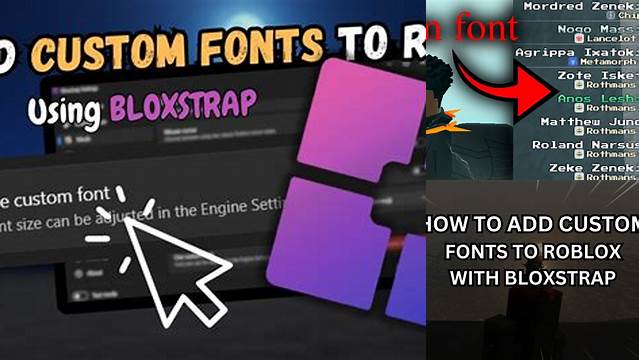
Roblox Fonts: How To Get & Use Custom Text!
Hey guys! Ever wanted to spice up your Roblox game with some cool, unique fonts? Well, you've come to the right place! Adding custom fonts to your Roblox creations can seriously level up the immersion and visual appeal. Whether you're designing a spooky horror game or a vibrant, bubbly hangout spot, the right font can make all the difference. This guide will walk you through everything you need to know about how to get fonts in Roblox, from finding the perfect typeface to implementing it like a pro.
Why Bother with Custom Fonts in Roblox?
Before we dive into the nitty-gritty, let's talk about why you should even bother with custom fonts in the first place. The default Roblox font is, well, a bit basic. It gets the job done, but it's not exactly going to win any design awards. Custom fonts allow you to:
- Enhance Immersion: Imagine a medieval RPG with Comic Sans. Doesn't quite fit, right? A custom font can perfectly match the theme and setting of your game.
- Improve Readability: Some fonts are simply easier to read than others. Choosing the right font can make your UI and in-game text much more user-friendly.
- Stand Out from the Crowd: In a sea of Roblox games, a unique font can help your game grab attention and leave a lasting impression.
- Brand Your Game: Using a consistent font across all your games can help build a recognizable brand.
1. Understanding Roblox Font Limitations
Okay, so before we jump in, let's get one thing straight: Roblox doesn't let you just upload any font file and use it directly. There are some limitations we need to work around. Roblox primarily uses font objects which reference fonts already installed on the user's computer. This means that to truly customize the look and feel with your fonts, some extra effort is needed. While there are constraints to consider, understanding these hurdles is the initial step to how to get fonts in Roblox effectively. You will need to find fonts that are compatible and explore methods to implement them, ensuring they appear as intended for all players.
2. Finding Free Fonts for Roblox
The good news is, there are tons of amazing free fonts out there that you can use in your Roblox games! Websites like Google Fonts, DaFont, and Font Squirrel are treasure troves of typefaces just waiting to be discovered. When browsing for fonts, keep the following in mind:
- Readability: Choose a font that's easy to read at various sizes and resolutions.
- Style: Pick a font that matches the overall aesthetic of your game.
3. Using Image Labels and Text Objects
One common method for using custom fonts is through image labels. You'll create an image of your text using the desired font and then display that image in your Roblox game. This method gives you full control over the appearance of the text but can be more labor-intensive than other options.
4. Utilizing Third-Party Font Services
Another approach is to use third-party font services, which provide APIs to render text with custom fonts dynamically. These services often offer a wider range of fonts and advanced features but may come with a cost.
5. Creating Custom GUIs with Unique Fonts
Custom GUIs are essential for any Roblox game that aims to provide a unique player experience. Incorporating custom fonts into your GUIs can greatly enhance their visual appeal and readability, contributing to a more immersive and engaging game. Understanding how to get fonts in Roblox and integrate them into your GUI design is key to creating a polished and professional-looking game interface.
6. Optimizing Font Performance in Roblox
Performance is crucial in Roblox, so it's essential to optimize your font usage to avoid lag or frame rate drops. Use font atlases, reduce the number of text objects, and choose fonts with simpler outlines to minimize the impact on performance. Optimizing the performance when working out how to get fonts in Roblox will drastically improve the user experience.
7. Exploring Different Font Styles for Roblox Games
Experimenting with different font styles can greatly enhance the visual appeal of your Roblox game. From serif to sans-serif, script to display, each font style has its own unique characteristics that can evoke different emotions and set the tone for your game. Consider experimenting with a variety of options when exploring how to get fonts in Roblox.
8. Implementing Font Scaling for Various Devices
Ensuring that your fonts scale properly across different devices is essential for providing a consistent user experience in Roblox. Use scaling techniques to adjust the font size based on screen resolution and device type, ensuring that text remains readable and visually appealing on all platforms. This consideration is essential when thinking about how to get fonts in Roblox and implement it in a way that is visually appealing to a wide audience.
9. Troubleshooting Font Issues in Roblox
Encountering font issues is not uncommon when working with Roblox. Whether it's rendering problems, compatibility issues, or performance bottlenecks, troubleshooting these issues effectively is essential for ensuring a smooth and polished gaming experience. If there are issues when considering how to get fonts in Roblox, it's important to consider these issues as soon as possible to avoid user dissatisfaction.
10. Advanced Font Techniques for Roblox
For advanced users, there are several techniques that can take your font game to the next level. These include using custom shaders to create unique font effects, implementing dynamic font loading to reduce memory usage, and integrating font libraries to access a wider range of fonts. Some of the more advanced techniques for considering how to get fonts in Roblox include custom shaders and dynamic font loading.
11. Monospace Fonts in Roblox
Monospace fonts, where each character occupies the same horizontal space, can be incredibly useful in certain Roblox applications. Think coding tutorials, command-line interfaces within games, or displaying precise numerical data. They offer a clean, uniform look that can enhance readability in these contexts.
12. Serif vs. Sans-Serif Fonts in Roblox
The age-old debate! Serif fonts (like Times New Roman) have little decorative strokes at the ends of the letters, while sans-serif fonts (like Arial) don't. Serif fonts are often seen as more traditional and formal, while sans-serif fonts are considered modern and clean. Which one you choose depends entirely on the vibe you're going for in your game.
13. Script and Handwritten Fonts in Roblox
Want to add a touch of elegance or whimsy to your Roblox game? Script and handwritten fonts can do the trick! These fonts mimic the look of cursive writing and can be perfect for creating a more personal and inviting atmosphere. Just be sure to use them sparingly, as they can sometimes be difficult to read.
14. Display Fonts for Roblox Titles and Logos
Display fonts are designed to grab attention! These fonts are often bold, unique, and full of personality. They're perfect for use in your game's title, logo, or other prominent UI elements. Just be careful not to overdo it, as too many display fonts can make your game look cluttered and overwhelming.
15. Pixel Fonts for Retro Roblox Games
If you're creating a retro-style Roblox game, pixel fonts are a must! These fonts are designed to mimic the look of old-school video game fonts, with each character made up of individual pixels. They're perfect for creating a nostalgic and authentic feel.
16. Color Fonts in Roblox
While Roblox doesn't natively support color fonts (fonts with built-in color information), you can achieve a similar effect by using image labels or text objects with colored backgrounds. This can be a great way to add visual interest to your text and make it stand out.
17. Gradient Fonts in Roblox
Similar to color fonts, you can create the illusion of gradient fonts by layering multiple text objects with different colors and positions. This can be a bit tricky to pull off, but the results can be stunning!
18. Animated Fonts in Roblox
Want to really impress your players? Try animating your fonts! You can do this by using a script to change the text or color of a text object over time. This can be a great way to add a sense of energy and excitement to your game.
19. 3D Fonts in Roblox
While Roblox doesn't have true 3D fonts, you can create a 3D effect by using multiple text objects with slight offsets. This can give your text a sense of depth and dimension.
20. Creating Your Own Custom Fonts for Roblox
For the truly adventurous, you can even create your own custom fonts! There are many font editing software programs available, both free and paid. Creating your own font can be a time-consuming process, but it's a great way to add a truly unique touch to your Roblox game.
21. Font Kerning and Leading in Roblox
Kerning (the spacing between individual letters) and leading (the spacing between lines of text) are important factors in readability. While Roblox doesn't offer direct control over these settings, you can adjust the size and position of your text objects to achieve the desired effect.
22. Font Anti-Aliasing in Roblox
Anti-aliasing is a technique used to smooth out the edges of fonts, making them look less jagged. Roblox automatically applies anti-aliasing to its text objects, but you can disable it if you prefer a more pixelated look.
23. Font Shadows and Outlines in Roblox
Adding shadows and outlines to your fonts can help them stand out from the background and improve readability. You can achieve this effect by using multiple text objects with different colors and positions.
24. Using Font Atlases to Improve Performance in Roblox
A font atlas is a single image that contains all the characters of a font. Using a font atlas can significantly improve performance, especially if you're using a lot of text in your game.
25. Localizing Fonts for Different Languages in Roblox
If you're targeting a global audience, it's important to localize your fonts for different languages. This means choosing fonts that support the characters used in each language.
26. Font Copyright and Licensing for Roblox Games
Always be aware of the copyright and licensing restrictions for the fonts you use in your Roblox games. Make sure you have the right to use the font commercially, especially if you plan to monetize your game.
27. Font File Formats Supported by Roblox
Roblox primarily uses font objects which reference fonts already installed on the user's computer. It's important to consider applicable file formats when considering how to get fonts in Roblox.
28. Font Naming Conventions in Roblox
Use clear and consistent naming conventions for your font files and text objects. This will make it easier to manage your fonts and avoid confusion.
29. Font Best Practices for User Interface Design in Roblox
Follow best practices for user interface design when using fonts in your Roblox games. This includes choosing readable fonts, using appropriate font sizes, and ensuring that your text is properly aligned and spaced.
30. Future of Fonts in Roblox
Who knows what the future holds for fonts in Roblox? Perhaps we'll see native support for custom font files, or even the ability to create and share our own fonts directly within the Roblox platform. Only time will tell!
So there you have it, guys! Everything you need to know about how to get fonts in Roblox. With a little creativity and effort, you can transform your Roblox games into visual masterpieces. Happy creating!